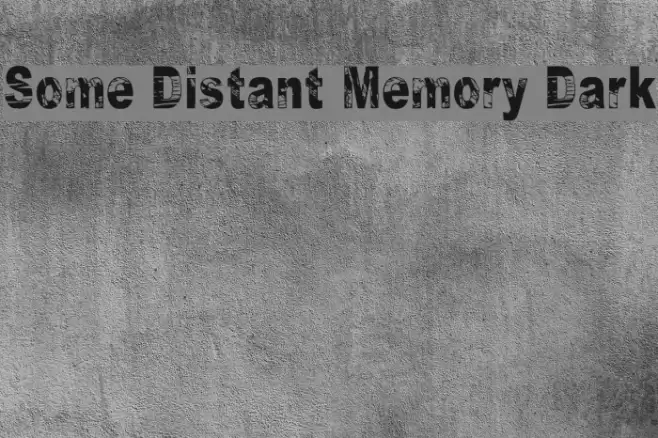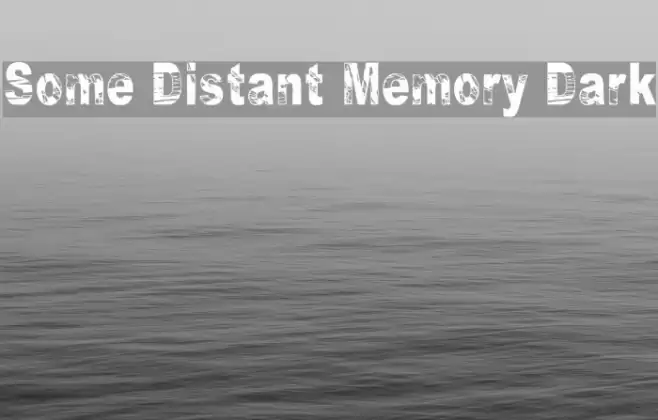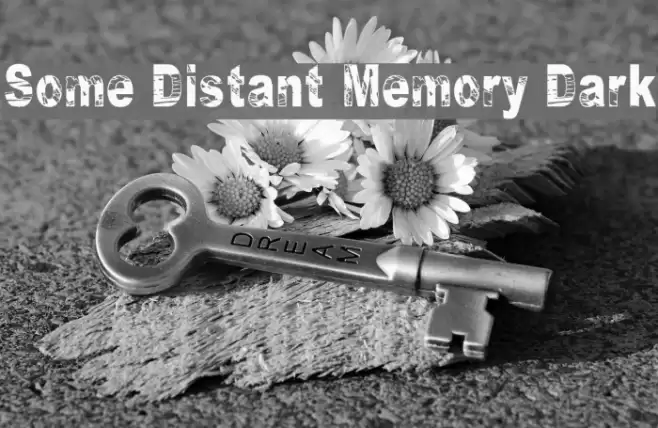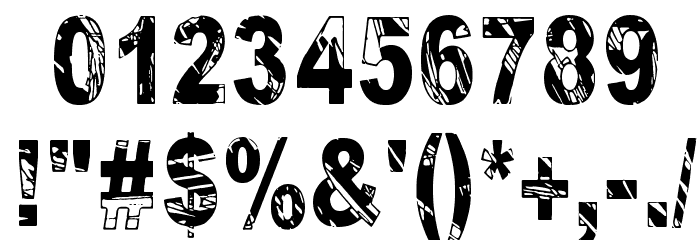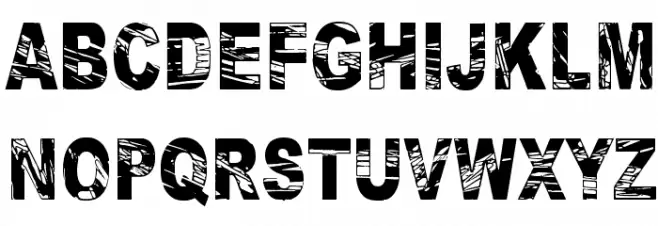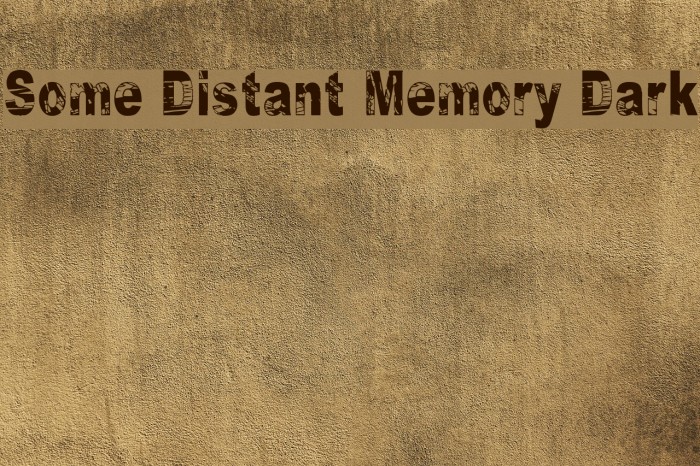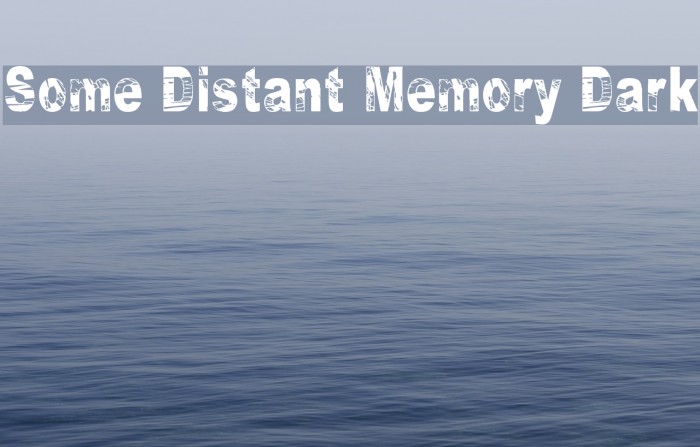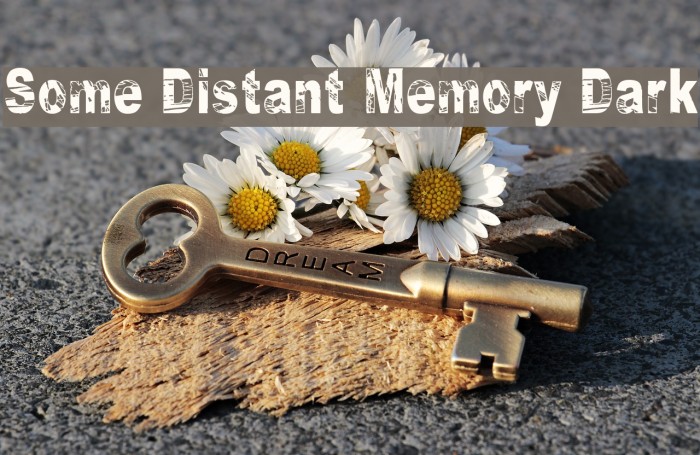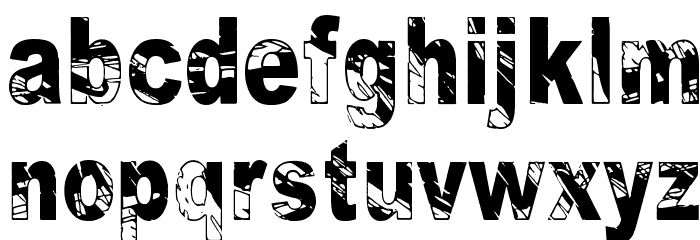
Some Distant Memory Dark Font
Some Distant Memory Dark Description
This font features a bold, distressed style with a unique texture that resembles cracked or shattered surfaces. The uppercase and lowercase letters maintain a consistent weight, providing a strong visual impact. The numbers and special characters follow the same design, ensuring a cohesive look across all glyphs. The texture within each character adds a dynamic and edgy feel, making it ideal for projects that require a bold statement. The font's overall appearance is both modern and artistic, suitable for creative and unconventional designs.
A bold, distressed font with a cracked texture for a dynamic, edgy look from Uncategorized fonts.
- Proposed Projects: Ideal for album covers, posters, branding for edgy products, or any design needing a bold, artistic touch.
- Overall Style: Modern, Artistic